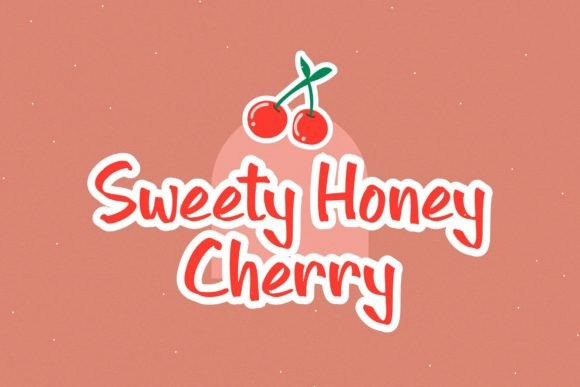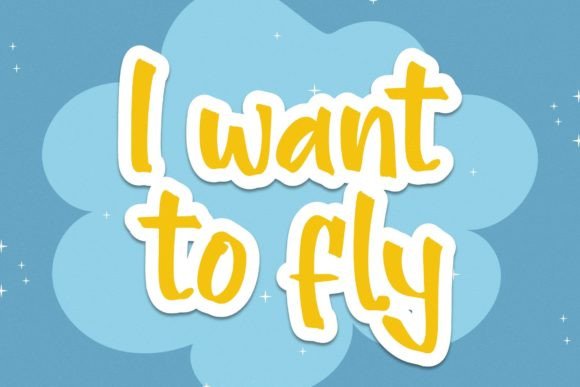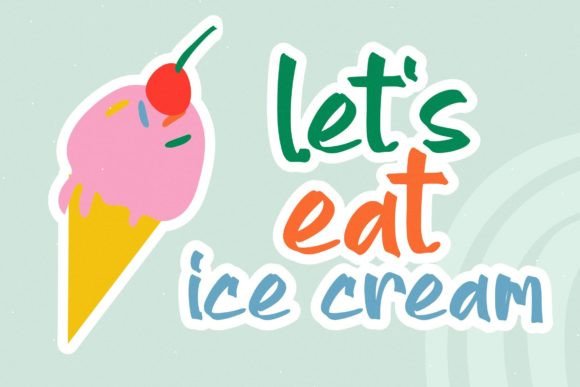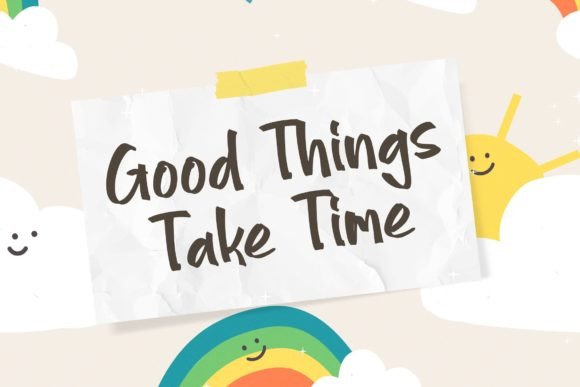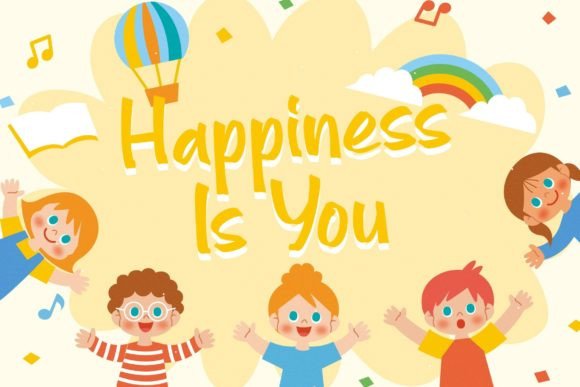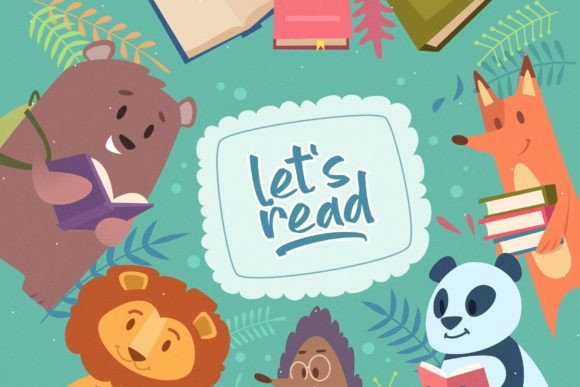
Introduction to Hightfull Font
Remember that moment when you were brainstorming ideas for your next creative project, and you stumbled upon the perfect phrase to express your thoughts? For designers, this moment is what drives us to create something truly special. It’s the spark that ignites our passion and fuels our imagination. And what better way to capture this moment than with a font that exudes warmth and personality?
Enter the Hightfull Font, a stunning handwritten brush script font that looks and feels like it was written on a marker board. With its high-quality design and transparent background, this font is perfect for adding a touch of whimsy to your greeting cards, invitations, and motivational quotes. Whether you’re a seasoned designer or just starting out, the Hightfull Font is an invaluable design resource that will help you express your best messages in a way that’s both creative and memorable.
Key Features of Hightfull Font
- High-quality font with a transparent background, perfect for creative projects that require a clean and minimalist design.
- Designed with a focus on readability, making it ideal for use in body text, headings, and titles in various creative projects.
- Includes a wide range of characters, including Latin, Cyrillic, and Greek alphabets, as well as punctuation and special characters.
- Unique characteristics include a modern and sleek aesthetic, with subtle rounded edges and a consistent line width.
Honest Review: Hightfull Font
I recently had the chance to work with the Hightfull Font, and I must say it’s been a game-changer for my creative project. The free download was a great find, and I was impressed by the high quality of the font.
Here’s what I like about it:
- ✨ Beautiful typography: The Hightfull Font has a clean, modern design that’s perfect for any project.
- ✨ Versatile: I’ve used it for headings, titles, and even as a design resource for my logo.
- ✨ Transparent background: This is a big plus for me, as it makes it easy to use with any background image or color.
- ⚠️ Limited character set: The font doesn’t come with a comprehensive character set, which can be a problem for certain languages or special characters.
- ⚠️ Not suitable for small text: While the font looks great in large sizes, it can become difficult to read when used in smaller sizes.
Overall, I’m really impressed with the Hightfull Font. While it has some limitations, its high quality and versatility make it a valuable addition to my design resource library.
The Hightfull Font is a versatile design resource that can be used in a variety of creative projects, such as logos, brochures, and social media graphics. Its high quality and transparent background make it an ideal choice for designers who want to create visually appealing and professional-looking designs.
To get the most out of the Hightfull Font, experiment with different font sizes, colors, and alignments to find the perfect look for your project. You can also use the font in combination with other design elements, such as images and shapes, to create a visually appealing design.